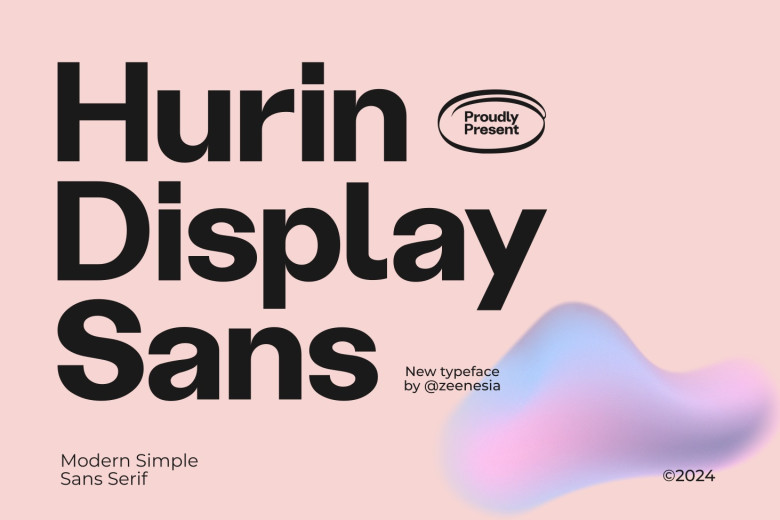
Hurin Font
Hurin is a Modern Sans Serif typeface that creates the perfect marriage of civilization design tenets with simplicity. The courses of Hurin’s sans serif strokes are continuous as one traverse the other; this vitalizes every artistic piece, making your creation look and feel more artistic by turning a common piece of text into an appealing dessert for the eyes.
There is nothing that is lying low in Hurin; each and every curve has a sense of the elegant, and the whole typographic experience simply looks delicious. Let Hurin’s artsy theme set your creativity free and give a new meaning to the power of visuals.
Hurin Sans Serif Font